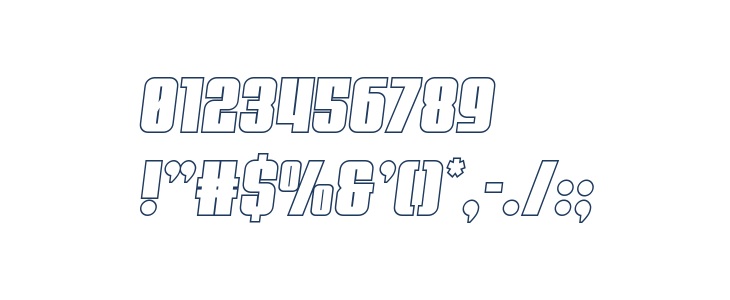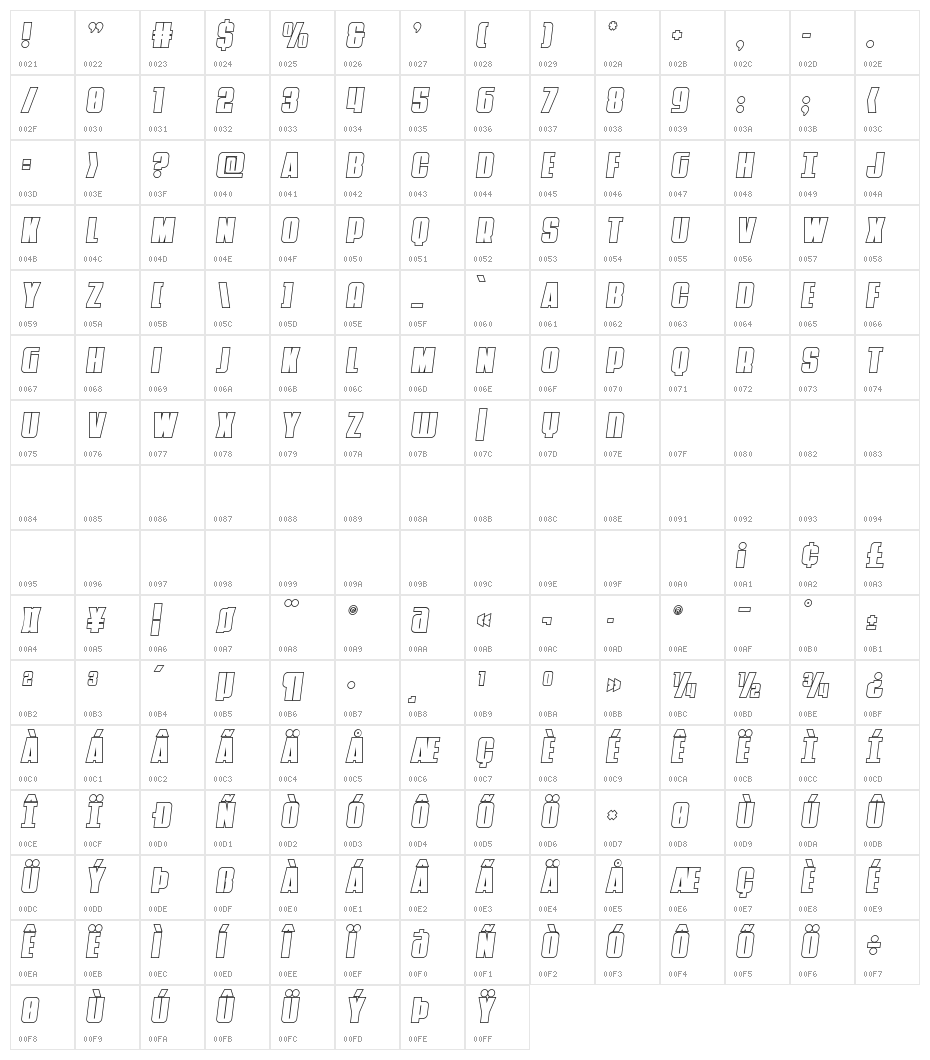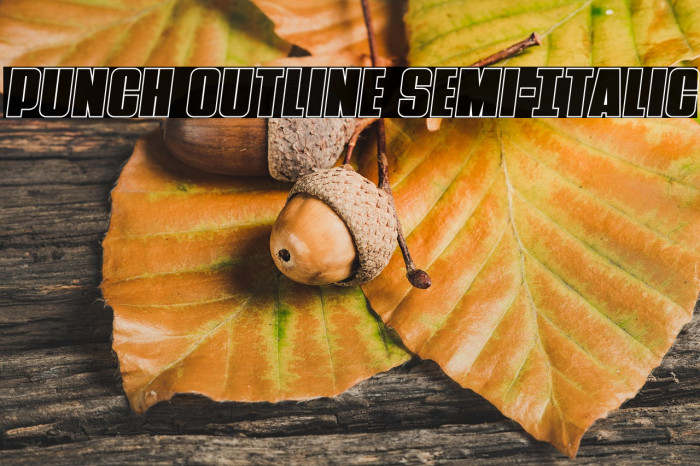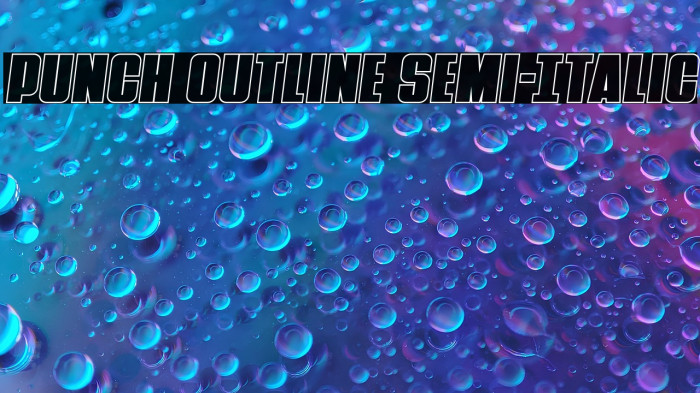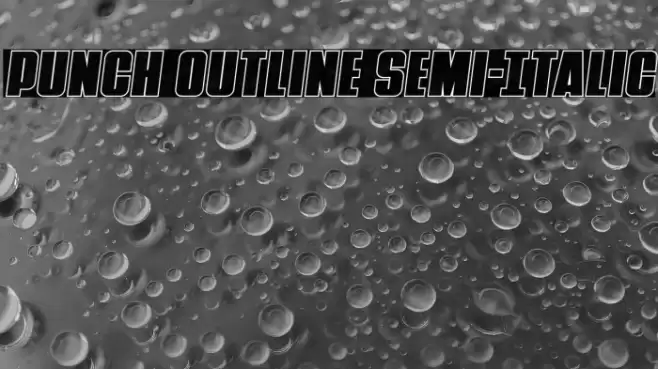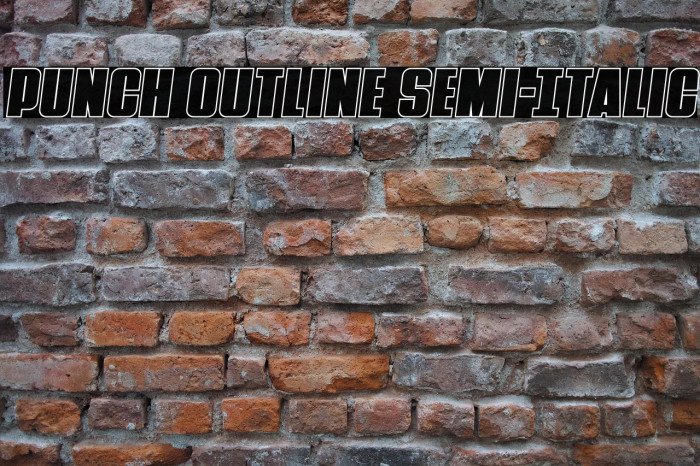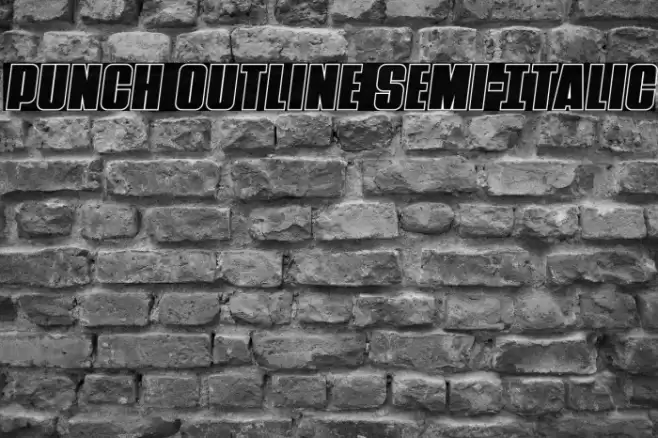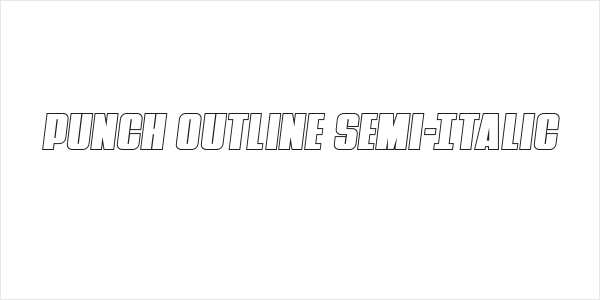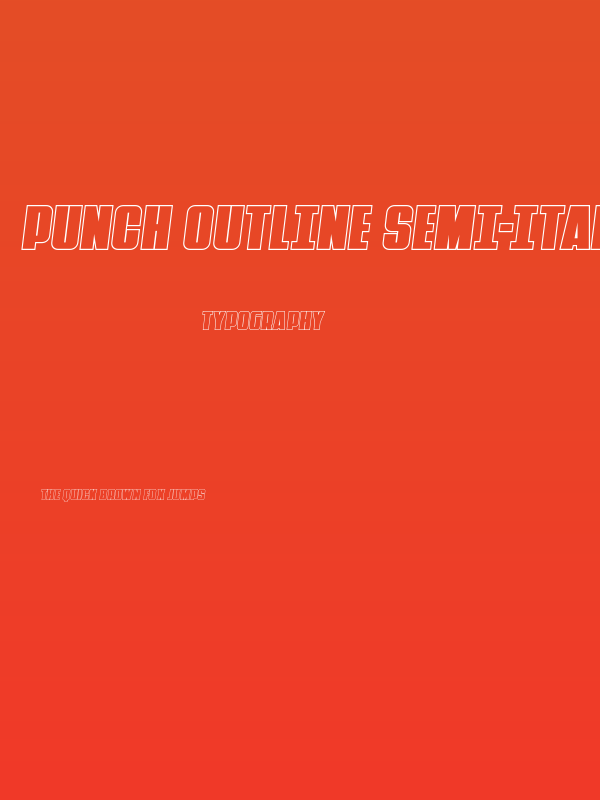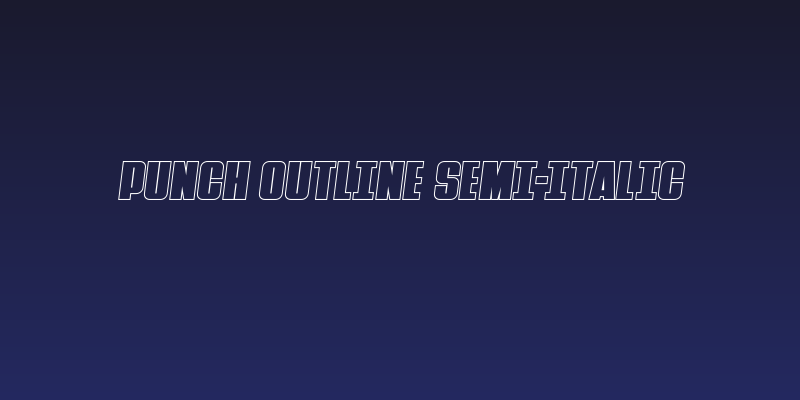
Punch Outline Semi-Italic Font
Punch Outline Semi-Italic Description
This font features a bold, outlined style with a semi-italic slant, giving it a dynamic and energetic appearance. The uppercase letters are robust and impactful, while the lowercase letters maintain a consistent style, ensuring readability. The numbers are equally bold and outlined, making them stand out prominently. Special characters are designed to match the overall aesthetic, providing a cohesive look across all glyphs. The font's outline style adds a unique dimension, making it suitable for eye-catching designs.
| Proposed Projects | Ideal for sports branding, posters, headlines, and any project needing a bold, impactful typeface. |